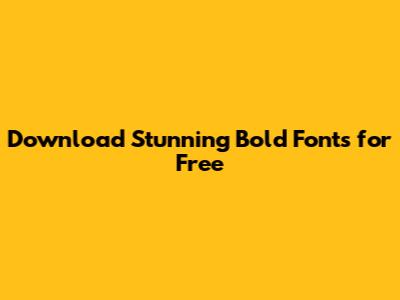
Hey guys! Are you looking to spice up your designs with some powerful and eye-catching typography? Then you've come to the right place! We're diving deep into the world of creative bold fonts, and the best part? You can download tons of them for free! Forget those boring, run-of-the-mill fonts; we're talking about the kind of typefaces that grab attention and make your message POP. Whether you're a seasoned designer, a budding entrepreneur, or just someone who loves a good font, this is your ultimate guide to finding the perfect bold fonts to elevate your projects. Get ready to explore a wide range of styles, from the classic and elegant to the modern and edgy. We'll show you where to find them, how to use them, and even give you some tips on pairing them with other fonts for a truly unique look. So, buckle up, because your font library is about to get a serious upgrade! This guide is all about helping you find the perfect creative bold fonts free download options. Let's make sure your designs stand out from the crowd! So, let's jump right in and discover some amazing creative bold fonts free download options that will take your designs to the next level. We'll cover everything from classic serifs to modern sans-serifs, and even some unique display fonts that will make your projects truly unforgettable. This is your one-stop shop for everything related to bold fonts – let's make your designs shine!
Why Choose Bold Fonts?
So, why all the fuss about bold fonts, anyway? Well, let me tell you, they're a total game-changer! Bold fonts are designed to command attention, making them perfect for headlines, titles, and any text that needs to stand out. They have a natural ability to draw the eye, ensuring that your message is seen and understood. Think about it: when you're scrolling through a website or flipping through a magazine, what's the first thing you notice? Usually, it's the bold and striking headlines. This is precisely the power that bold fonts bring to the table. Beyond just grabbing attention, bold fonts can also convey a sense of confidence, strength, and impact. They're often used to emphasize important information and create a strong visual hierarchy. Whether you're designing a website, creating marketing materials, or crafting a presentation, a well-chosen bold font can make a huge difference in how your audience perceives your message.
Bold fonts are also incredibly versatile. They can be used in a wide variety of contexts, from corporate branding to personal projects. They work well in both digital and print media, making them a must-have for any designer's toolkit. Plus, with the abundance of creative bold fonts free download options available, there's a style for everyone. Are you aiming for a classic and elegant look? There's a bold serif font for that. Do you want something modern and minimalist? A bold sans-serif font will do the trick. Or maybe you're looking for something more playful and unique? There are plenty of display fonts that will fit the bill. The possibilities are endless! Ultimately, choosing a bold font is about making a statement. It's about ensuring your message is not just seen, but felt. It's about creating a lasting impression that resonates with your audience. So, embrace the power of bold fonts, and watch your designs come to life. Let's find you some stunning creative bold fonts free download options to make your projects shine!
Types of Bold Fonts to Explore
Okay, now that you know where to find those awesome creative bold fonts free download options, let's talk about the different types of bold fonts you can explore. The world of typography is incredibly diverse, and understanding the different styles will help you choose the perfect font for your project. First, we have bold serif fonts. These fonts are characterized by their small strokes at the ends of the letters, known as serifs. They often convey a sense of tradition, elegance, and sophistication. Bold serif fonts are excellent for headlines and titles where you want to add a touch of class. Then, we've got bold sans-serif fonts. Sans-serif fonts do not have the small strokes, which gives them a clean and modern look. They are incredibly versatile and can be used in a wide range of designs. Bold sans-serif fonts are perfect for both headlines and body text, making them a go-to choice for many designers.
Next up, we have bold display fonts. Display fonts are designed to be used in large sizes for headlines, titles, and other display purposes. They often have unique and eye-catching designs and are perfect for making a statement. Display fonts can be anything from script fonts to decorative fonts, so let your imagination run wild! Bold display fonts are a great choice if you want to capture attention quickly. Also, we have bold script fonts. These fonts mimic handwriting and often have a fluid and elegant look. Bold script fonts are great for adding a touch of personality and can be used for things like logos, invitations, or headlines. Remember to use them sparingly, as they can sometimes be difficult to read in large blocks of text. Lastly, we have bold slab serif fonts. These fonts are a combination of serif and sans-serif fonts, with thick, blocky serifs. They convey a sense of strength and are often used in designs where you want to make a bold statement. Bold slab serif fonts can be a great option for headlines, but be careful using them in body text, as they can sometimes be a bit overwhelming. Now that you know the main styles, finding those creative bold fonts free download options will be much easier!
Tips for Using Bold Fonts Effectively
Alright, you've got your creative bold fonts free download options, and you're ready to start designing! But how do you use them effectively? Here are some tips to help you make the most of your bold fonts and create stunning designs. First, use bold fonts sparingly. While they're great for headlines and titles, using them for large blocks of text can make your design feel overwhelming and difficult to read. Save your bold fonts for key elements that you want to emphasize. Next, consider the context. The right bold font for a formal business presentation will differ from one for a playful social media post. Think about your target audience and the overall message you want to convey. Make sure your font choice aligns with the context. Also, pair fonts wisely. Don't be afraid to combine bold fonts with other font styles. The key is to create a harmonious and balanced design. Try pairing a bold serif font with a clean sans-serif for a classic look or use a bold display font with a simple body font for a striking contrast.
Also, pay attention to readability. Even the most beautiful bold font is useless if it's hard to read. Ensure your chosen font is legible at the size you're using it, and consider the background color and text size to ensure good contrast. Also, adjust kerning and leading. Kerning refers to the spacing between individual letters, and leading refers to the spacing between lines of text. Proper kerning and leading can significantly improve the readability and overall appearance of your design. Always test your designs. Before you finalize your project, test your design on different devices and in different contexts to ensure it looks good everywhere. Get feedback from others to see how your design is received. Finally, don't be afraid to experiment. Typography is an art form, so have fun and play around with different font combinations and styles until you find what works best for your project. Remember, the best creative bold fonts free download options are only useful if you use them creatively and effectively! So, use these tips and get creative.
Licensing and Usage Guidelines for Free Fonts
Before you download and use those amazing creative bold fonts free download options, it's crucial to understand the licensing and usage guidelines. This is important to ensure you're using the fonts legally and ethically. Different fonts have different licenses, and it's essential to check the specific license for each font you download. The most common types of licenses you'll encounter are: Personal Use. These fonts are free for personal projects but cannot be used for commercial purposes. Commercial Use. These fonts are free for both personal and commercial projects. Always check the license to ensure that your project is covered. Open Font License (OFL). This license allows for free use, modification, and redistribution of the font, even for commercial purposes. Always read the license carefully! Carefully read the license agreements before using any font. Look for information on: Allowed Uses. Is the font allowed for commercial projects, or only for personal use? Modifications. Are you allowed to modify the font? Redistribution. Are you allowed to redistribute the font? Attribution. Do you need to give credit to the font designer? Restrictions. Are there any restrictions on how you can use the font? Font formats. Ensure the font comes in a format that works for your project (e.g., .ttf, .otf, .woff). When using creative bold fonts free download resources, make sure you comply with the licensing terms to avoid legal issues. Respect the designers' work by adhering to their guidelines. By following these guidelines, you can enjoy using your bold fonts responsibly and ethically.